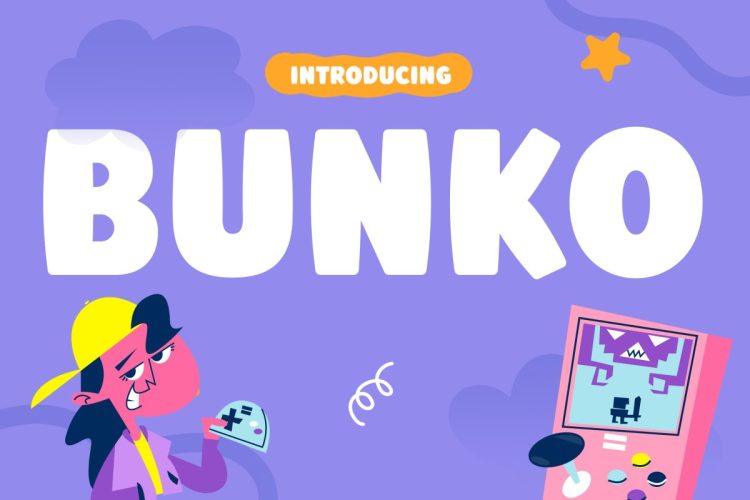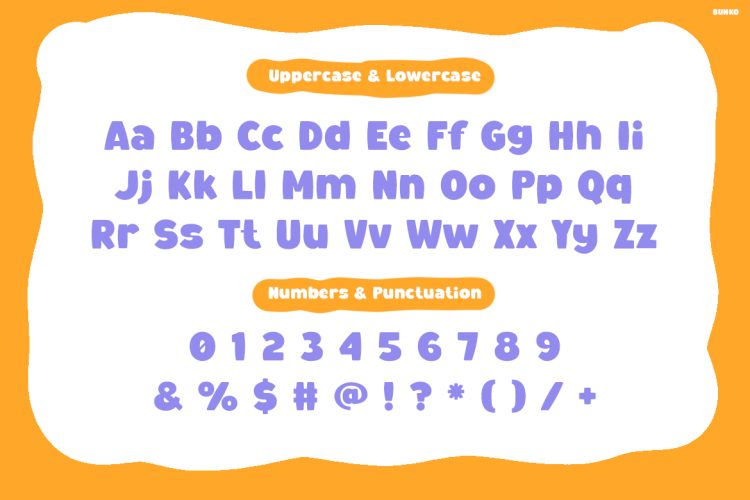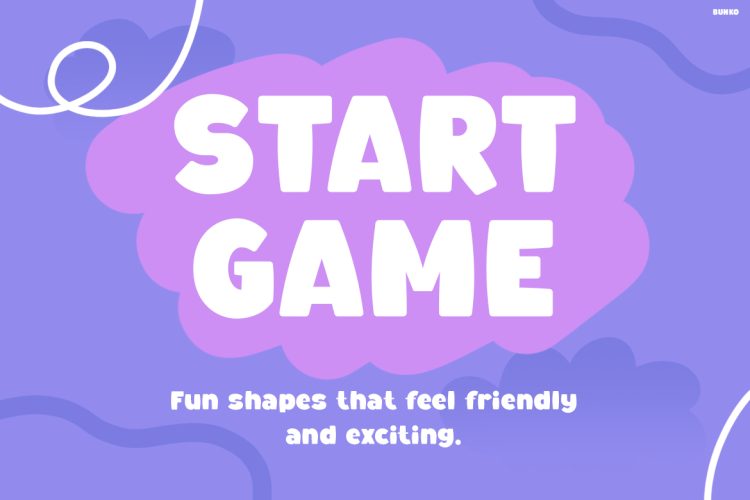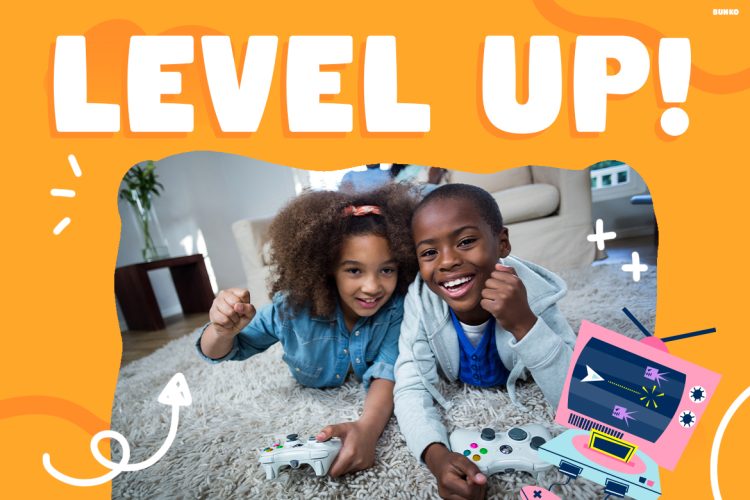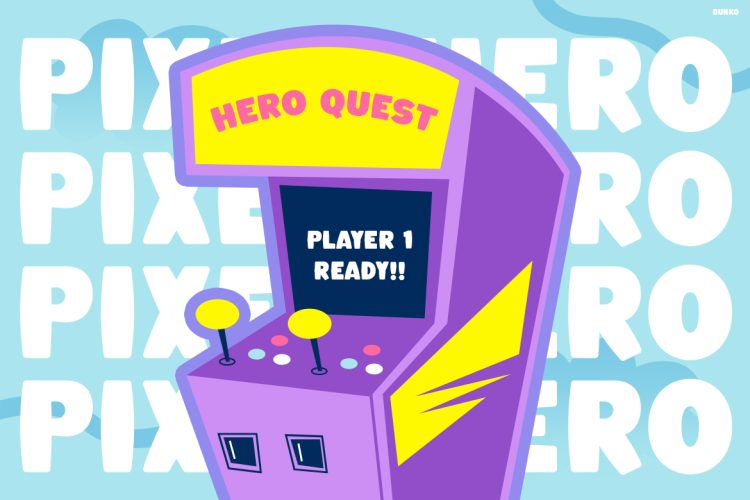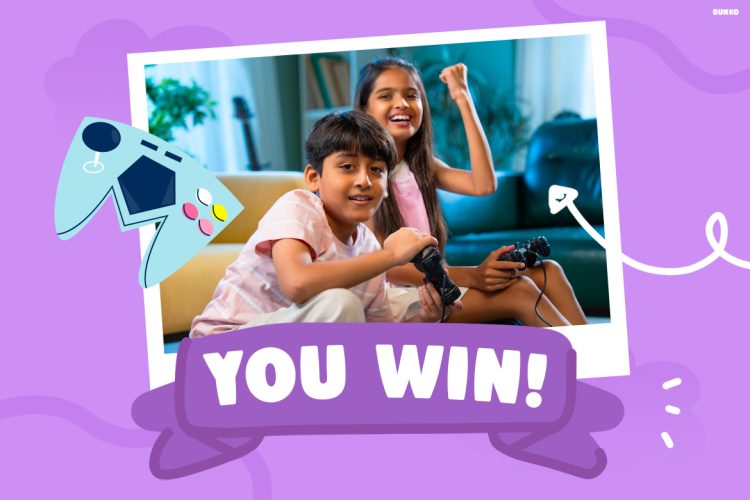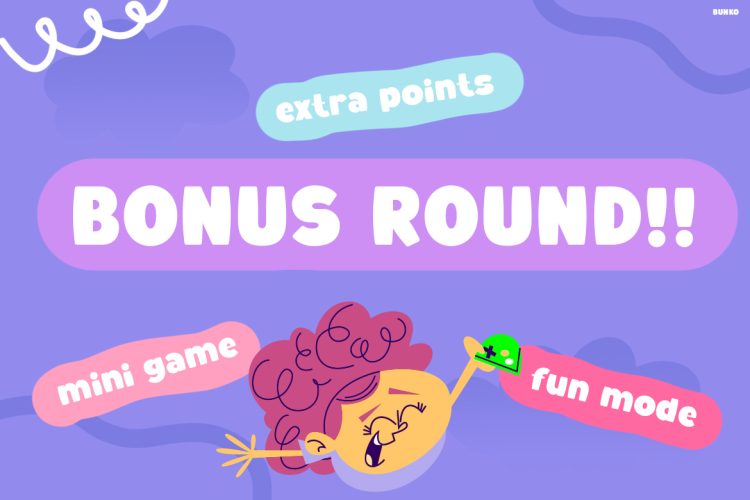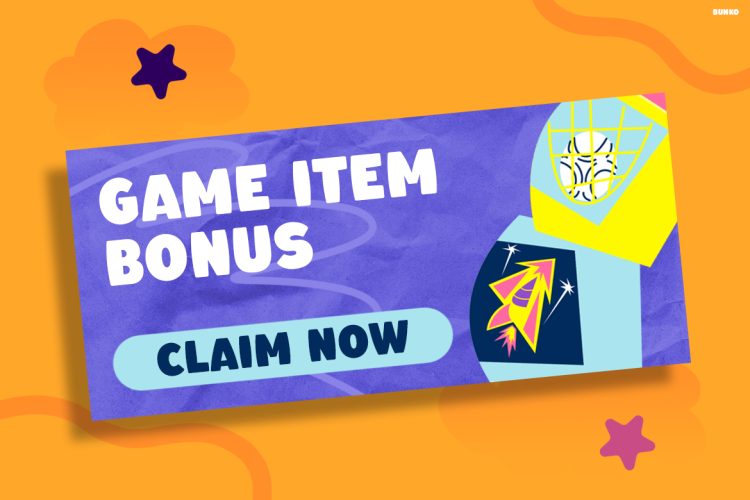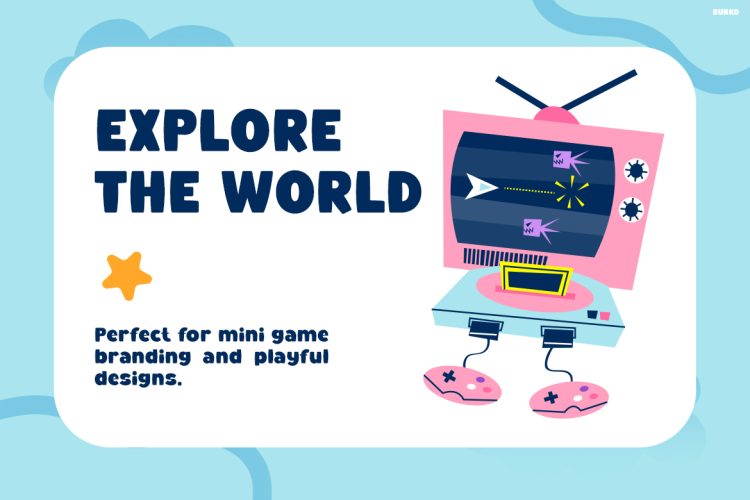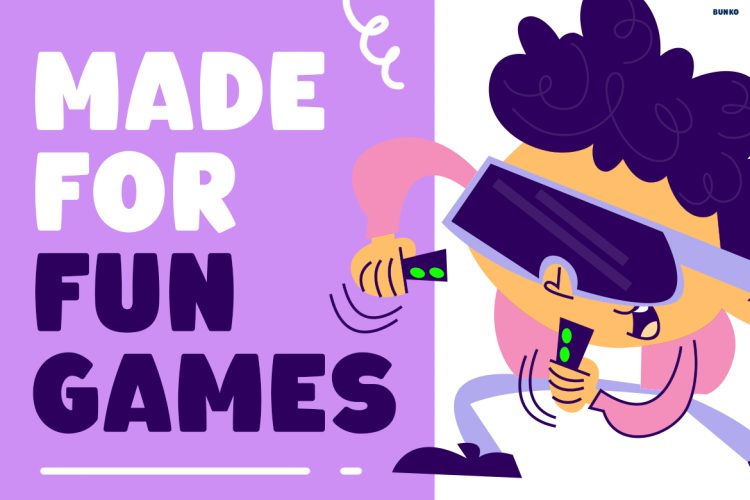
BUNKO โ Playful Game Font Full of Fun Energy
Kids Font BUNKO is a vibrant and playful typeface designed to bring excitement and joy into every design. At first glance, its chunky shapes and rounded edges create a friendly and energetic look. Moreover, the bold letterforms combined with fun curves give it a lively personality that instantly grabs attention. Because of its dynamic style, every word feels active and full of motion. In addition, its clear structure keeps the text readable even in colorful and busy layouts. As a result, BUNKO is perfect for designs that aim to feel fun, engaging, and full of positive energy.
Kids Font BUNKO is a cheerful display font crafted for playful and interactive design projects. Not only does it feature bold and friendly letterforms, but it also pairs perfectly with bright colors, illustrations, and game-themed visuals. Furthermore, its expressive style makes content feel more exciting and immersive. Therefore, whether you are creating game graphics, posters, or social media content, BUNKO adds a fun and energetic touch. Ultimately, it transforms simple text into eye-catching visuals that spark joy and creativity.
Because of its playful and energetic vibe, Kids Font BUNKO is ideal for:
- Game UI, mobile games, and gaming graphics
- Kids content and educational materials
- Posters, ads, and fun promotional designs
- Social media content with bright visuals
- Toy branding and playful product packaging
- Creative projects that need a fun, lively feel
In conclusion, Kids Font BUNKO is the perfect choice for designers who want bold, fun, and engaging visuals. So, add this playful font to your collection today and create designs that feel exciting, colorful, and full of life.